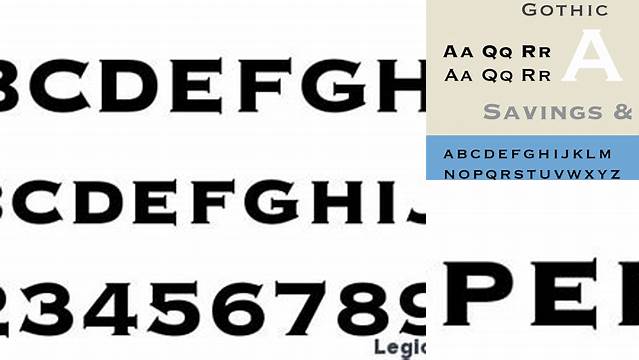
Hey guys! Are you on the hunt for that perfect font to give your designs a touch of classic elegance? Well, you've come to the right place! In this article, we're diving deep into the world of Copperplate Gothic Heavy, a font that screams sophistication and timelessness. We’ll explore everything from its history and characteristics to where you can find a copperplate gothic heavy font free download and how to best use it in your projects. So, buckle up and let's get started!
What is Copperplate Gothic Heavy?
Let's start with the basics. Copperplate Gothic Heavy is a classic typeface known for its clean lines, geometric shapes, and uppercase-only design. It was created in the early 20th century and has since become a staple in various design fields. This font exudes a sense of formality and is often used for business cards, stationery, and signage where a touch of class is desired. Finding a copperplate gothic heavy font free download can be a game-changer for your design arsenal, but it’s important to understand its nuances to use it effectively.
History of Copperplate Gothic
To truly appreciate Copperplate Gothic Heavy, it's helpful to know its origins. The font family was designed by Frederic Goudy in 1901, inspired by the lettering found on copper plates used for engraving. This explains the font's clean, crisp appearance. The "Heavy" version, in particular, adds a bolder, more impactful presence, making it ideal for headings and titles. Sourcing a copperplate gothic heavy font free download allows you to tap into this rich history and bring a touch of vintage charm to your modern projects. The story behind the font adds depth to its appeal, making it more than just a typeface; it's a piece of design history.
Key Characteristics of Copperplate Gothic Heavy
So, what makes Copperplate Gothic Heavy so unique? First off, it's an all-caps font, meaning it only features uppercase letters. This gives it a formal, authoritative feel. The thick, even strokes and geometric shapes contribute to its readability and visual impact. The “Heavy” weight adds extra emphasis, making it stand out even more. When you download copperplate gothic heavy font free, you’re getting a typeface that’s both elegant and attention-grabbing. Its distinctive characteristics make it suitable for a variety of applications, from branding to editorial design. Think of the possibilities when you add this font to your toolkit!
Where to Use Copperplate Gothic Heavy
Okay, you've got your hands on a copperplate gothic heavy font free download – now what? This font is incredibly versatile, but it shines in specific contexts. It’s fantastic for business cards and stationery, giving a professional and polished look. It’s also great for signage, especially for businesses aiming for a sophisticated vibe. Think law firms, upscale boutiques, and classic restaurants. While it’s not ideal for large blocks of text due to its all-caps nature, it’s perfect for headings, titles, and short bursts of text. Knowing where copperplate gothic heavy excels will help you maximize its impact in your designs.
So there you have it, guys! Everything you need to know about Copperplate Gothic Heavy and how to snag a copperplate gothic heavy font free download. This classic font is a powerful tool for adding a touch of elegance and sophistication to your designs. Remember to use it wisely, pair it thoughtfully, and always respect font licensing. Happy designing!